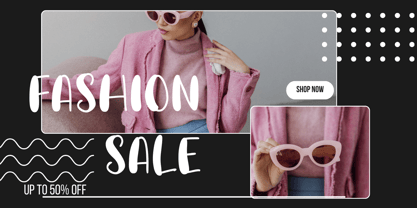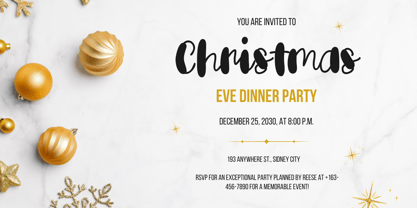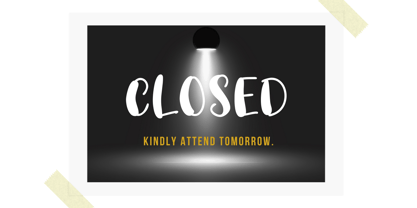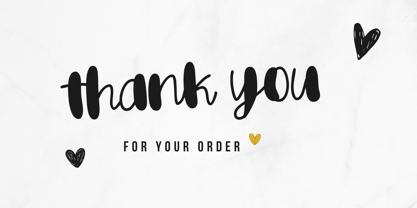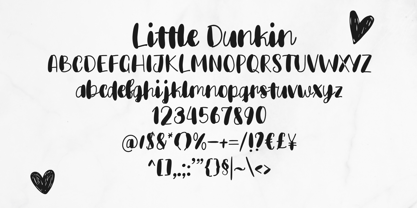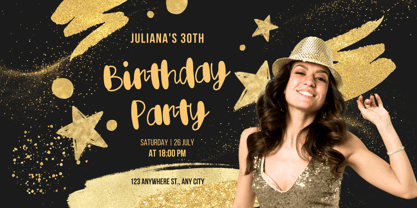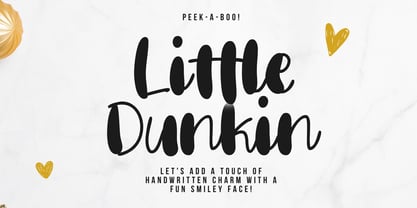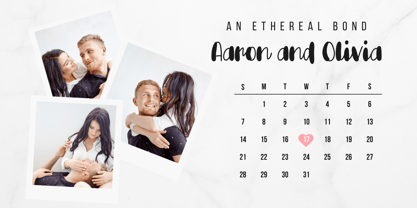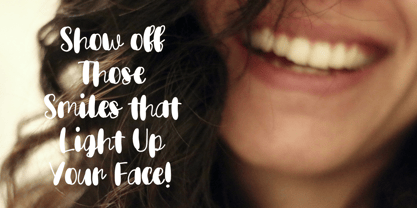
Little Dunkin
The Little Dunkin Font Family was designed by khaidir and published by Gatype. Little Dunkin contains 1 styles. More about this family
Little Dunkin – A Bubbly Font Full of Fun!
Meet Little Dunkin—a handwritten bubble font packed with charm and playful curves! Inspired by street fashion and spontaneous doodles, this font brings joyful energy to every design.
Perfect for streetwear branding, posters, fashion layouts, quotes, or giving your images a stylish text pop.
✨ Uppercase & lowercase letters
✨ Numbers & punctuation
✨ Fun, bouncy letterforms
Let Little Dunkin brighten up your next project! 💛